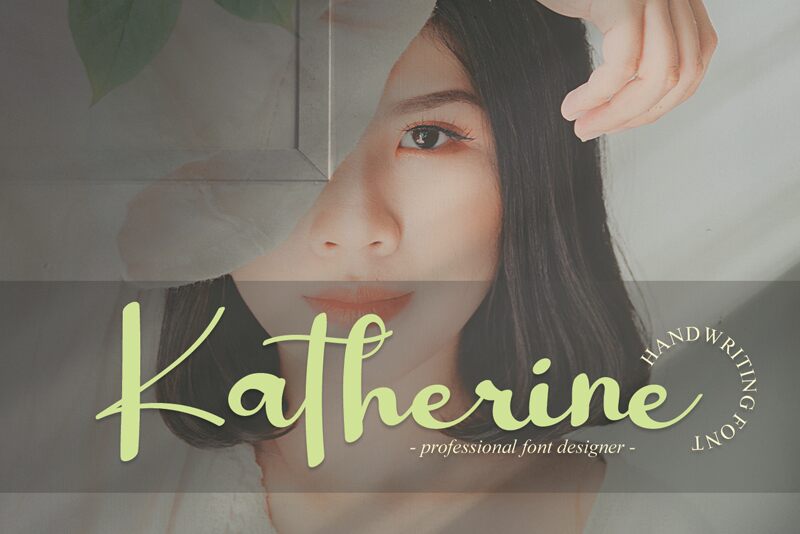
Katherine
Katherine is a fashionable script font designed by Luluk Surotul. It is neatly crafted and highly detailed. Whatever the topic, Simply will be a wonderful asset to your fonts library, as it has the potential to enhance any creation.